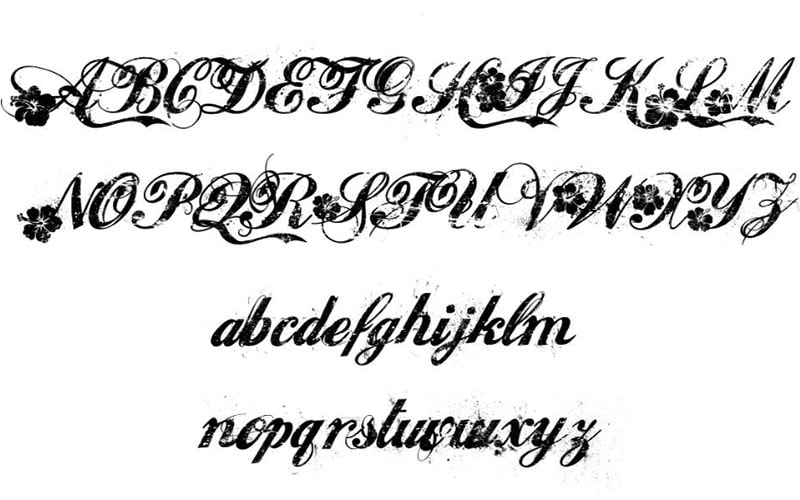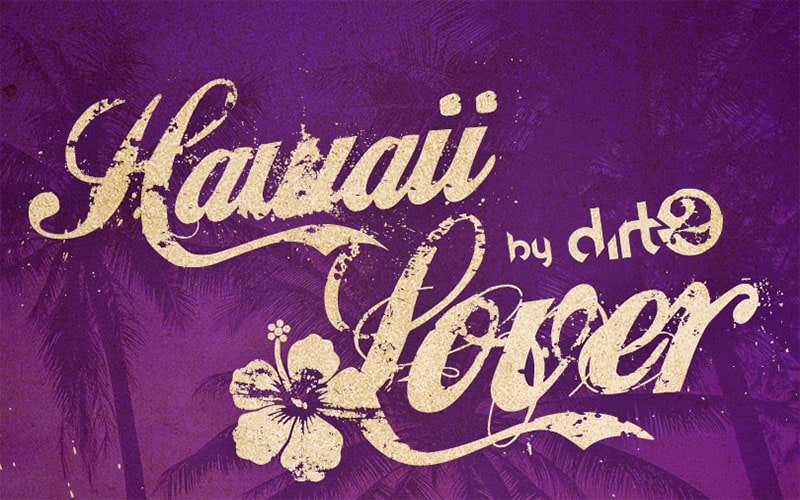
Hawaii Lover Font is a typeface that exudes a tropical, fun, and relaxed vibe, perfect for projects that require a playful and beachy aesthetic.
Dirt2.com – SickCapital is known as the specific designer of Hawaii Lover Font who took charge to create this typeface for the first time.
This font is ideal for creating designs that need to capture the essence of a Hawaiian vacation or any tropical setting, characterized by its playful and casual letterforms.
It includes a comprehensive character set such as Uppercase letters, Lowercase letters, Numerals, Punctuation marks, Special characters, and symbols, often with tropical-themed glyphs.
Hawaii Lover Font
| Style: | Script, Handwritten, Typeface |
| Font Designer: | Dirt2.com – SickCapital |
The font supports a range of Latin-based languages, ensuring its usability in various linguistic contexts that make it familiar all over the world.
The font often includes elements that evoke a tropical feel, such as wavy lines, floral accents, and a handwritten style. It comes in single, regular style, though some versions might offer bold variations to provide more design flexibility.